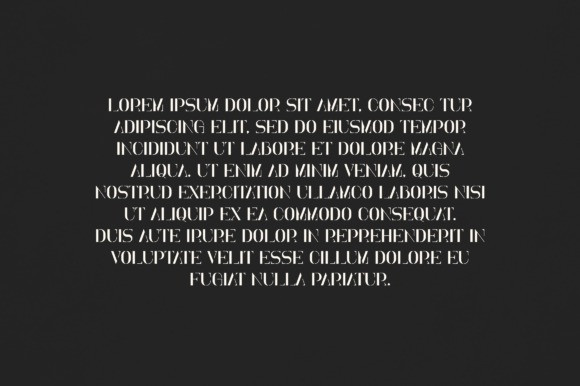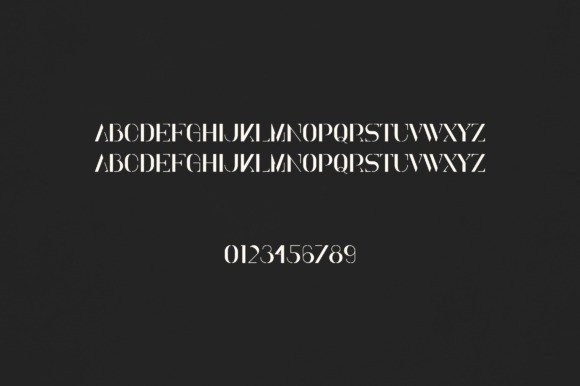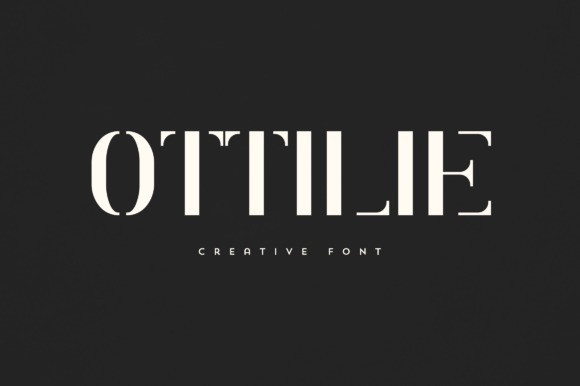
Ottilie Font
Ottilie Font is an elegant and versatile serif font that will make your typography truly unique! It will enchant every logo, branding, headline, or plain text!
Classification: Serif Fonts, Stencil Fonts